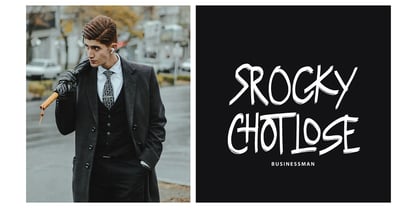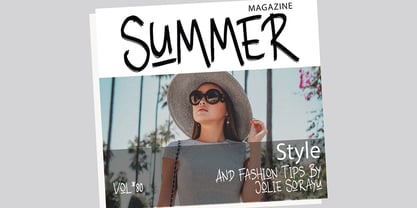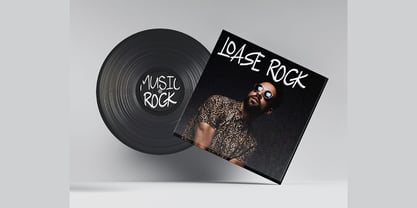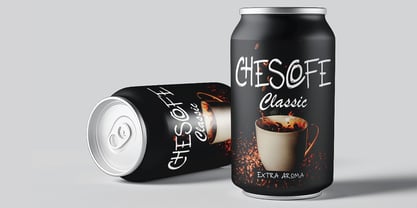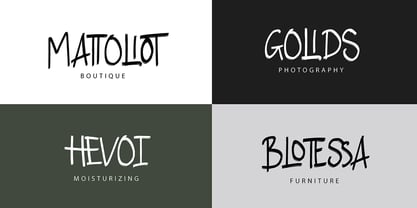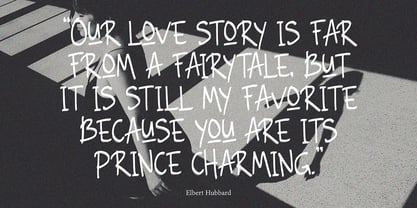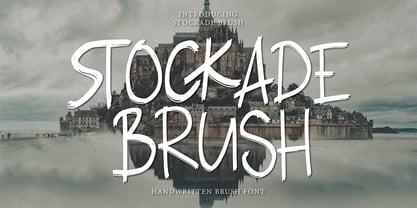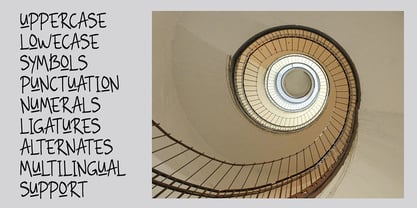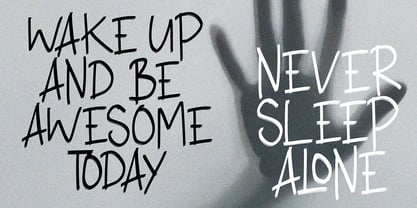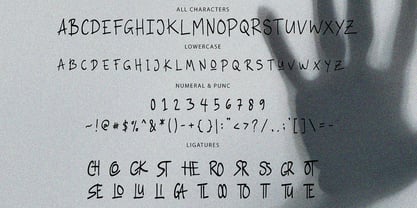
Stockade Brush
Die Schriftfamilie Stockade Brush wurde von Ferdiansyah entworfen und von Pointlab veröffentlicht. Stockade Brush enthält 1 Stile. Mehr über diese Familie
Stockade Brush with a handmade Signature style, decorative characters and a dancing baseline!
Stockade Brush Features :
Uppercase & Lowercase International Languange & Symbols Support Punctuation & Number PUA Unicode Range Standard Ligatures Discretionary Ligatures Stylistic Alternates Stylistic Set.
Designer: Ferdiansyah
Foundry: Pointlab